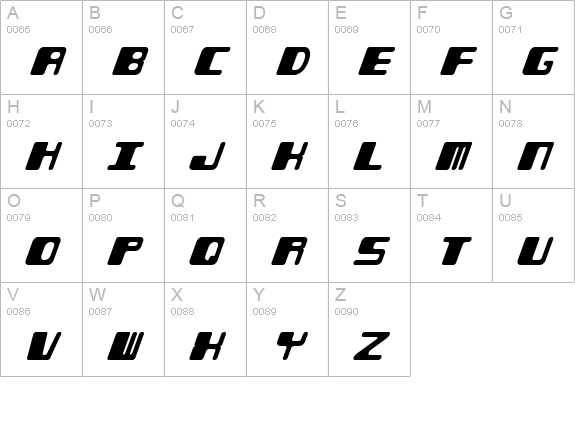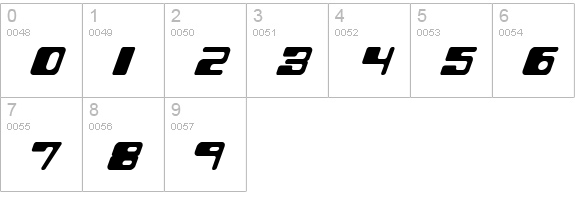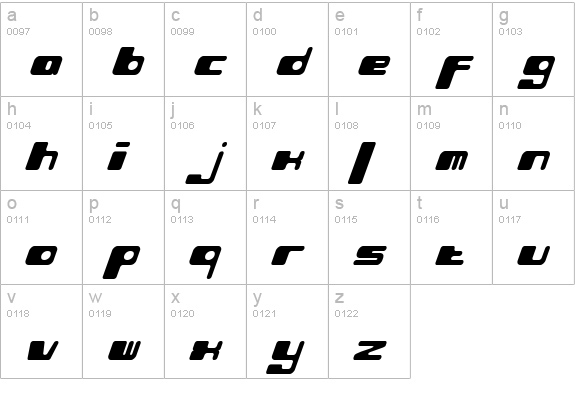
Phorfeit Slant BRK Font Details
Phorfeit Slant BRK font is a striking and versatile typeface that effortlessly captures attention with its unique slanted design. Its bold and edgy aesthetic adds a touch of modernity to any project, making it perfect for headlines, logos, posters, and more. This free font offers a wide range of characters, including uppercase letters, lowercase letters, numerals, and punctuation marks. The slightly tilted nature of the letters adds a dynamic and energetic feel to your designs, making them stand out from the crowd. Whether you're working on a branding project, a magazine layout, or a website design, Phorfeit Slant BRK font is sure to make a lasting impression. Its distinct style and versatility allow it to adapt to various design themes, from contemporary to urban to futuristic. What's even better is that Phorfeit Slant BRK font is freely available to download at FontsMarket.com. This means you can add this incredible font to your collection without breaking the bank. With just a few clicks, you can elevate your designs and bring them to life with the creative potential that Phorfeit Slant BRK font offers. Don't miss out on this opportunity to enhance your projects with a font that combines style, versatility, and affordability. Download Phorfeit Slant BRK font today and let your creativity soar.